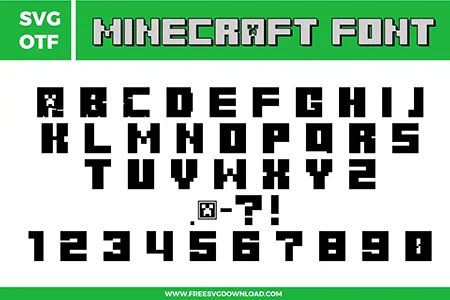
Minecraft Font Free SVG File
Minecraft font SVG free download – blocky pixel alphabet with Creeper face icon for Cricut and Silhouette
A pixelated and bold Minecraft Font free svg files set. The design features blocky, 8-bit style characters with sharp right angles, including a specialized Creeper face icon. This SVG and OTF font bundle includes a full uppercase alphabet, numbers 0-9, and punctuation in a classic video game typography style perfect for gaming-themed DIY projects.
• Minecraft Font SVG: Full uppercase alphabet set with matching numbers and punctuation, designed in a blocky pixel-style typeface with square corners, thick strokes, and small game-inspired face details inside select characters.